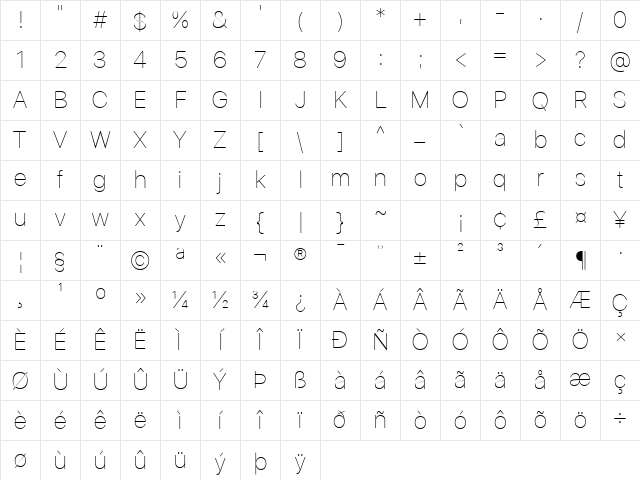
SFNS Display UltraLight
Style: UltraLight
Foundry: Apple Inc.
Designer: Apple Inc.
Design Context for SFNS Display
SFNS Display is built around its visual character rather than neutral utility - its distinctive forms are designed to make an impression at display sizes. Its slender proportions lend an understated elegance to any composition.
Font Pairing: Pair with a clean neutral sans-serif for body copy to let SFNS Display's character lead without overwhelming the composition.
Pro Tip: Use SFNS Display exclusively at display sizes - it was designed to be seen, not read at length. Let a neutral companion handle body copy.